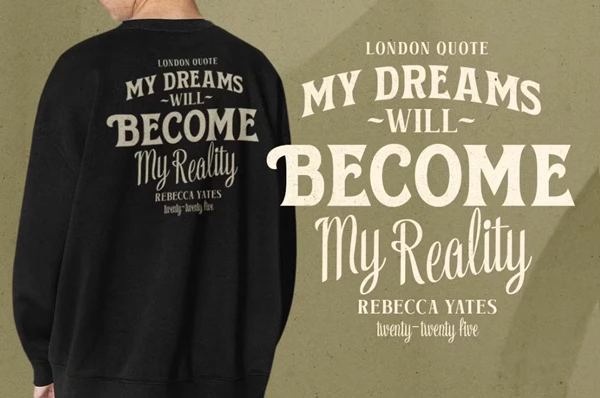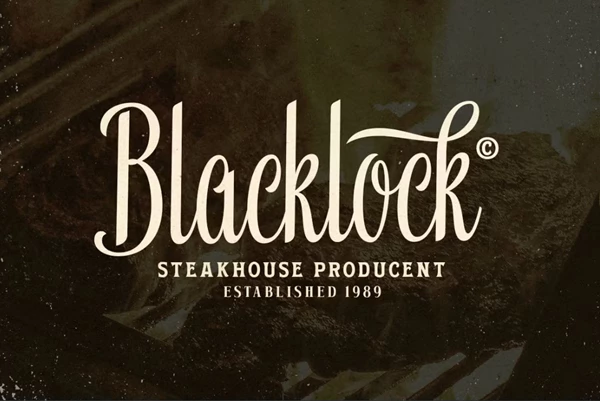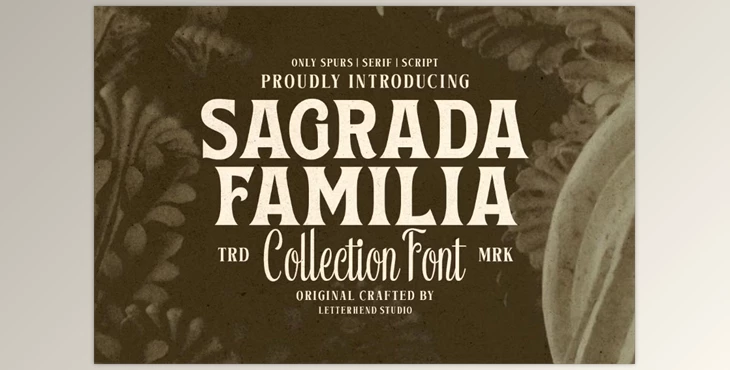
Sagrada Familia Font Collection:
Sagrada Familia Font Collection is an exquisitely designed vintage font family. This typeface offers a beautiful combination of serifs, spurred and script letters, which provides a classic yet timeless feel with a touch of tradition. Ideal for your branding, logotype, packaging, or editorial work with a vintage touch and sophisticated feel.
Some great features of Sagrada Familia Font Collection:
- Uppercase and lowercase letters
- Numbers and punctuation
- Alternates and ligatures
- Multilingual support
"Sagrada Familia Font Collection" Samples: